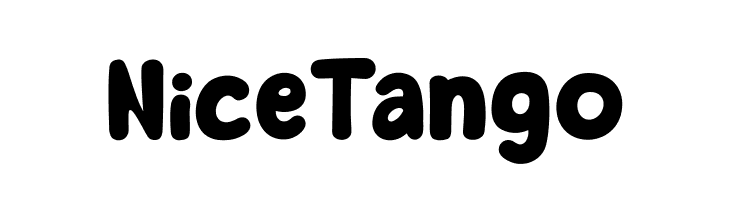
( Fonts by Bjokey )
A playful, casual handwritten font with smooth, rounded edges.
( Font by Pedro Munoz Pastor - fodkito.deviantart.com )
A bold, geometric font with a strong, block-like design.
A bold, italicized font with a dynamic and heroic style.
( Fonts by Pi Luo Chiu - thisisallenchiu.tumblr.com )
A decorative and distressed font with intricate swirls and a grunge aesthetic.
( Fonts by Des Gomez )
A playful, hand-drawn font with quirky, artistic characters.
A playful, cursive font with elegant connections and a whimsical style.
A classic serif font with elegant, sharp lines and traditional details.
A bold, serif font with high contrast and a classic, robust style.
A flowing and elegant script font with dynamic curves and moderate contrast.
( Fonts by Manfred Klein - manfred-klein.ina-mar.com )
A decorative font with intricate floral designs on each letter.
An elegant, flowing script font with graceful loops and swashes.
( Fonts by Manfred Klein - manfred-klein.ina-mar.com )
A bold, three-dimensional font with a rounded, block-like structure.
( Fonts by Nick Curtis - www.nicksfonts.com )
A bold, geometric font with angular elements and strong presence.
( Fonts by Have Fun with Fonts )
A bold, playful font with a slight slant and moderate contrast.
( John Gauthier - John Gauthier )
A bold, angular font with a dynamic and modern style.
( Fonts by or from www.graffitifonts.net )
A playful, casual handwritten font with dynamic, irregular strokes.
( Fonts by Manfred Klein - manfred-klein.ina-mar.com )
A classic serif font with an elegant outline effect, offering a refined and sophisticated look.
A sleek, modern font with geometric lines and a minimalist aesthetic.
( Fonts by Flava Fonts - Leigh Taylor )
A geometric, abstract font with bold, rectangular outlines and a modern aesthetic.
A bold, distressed font with a textured, vintage appearance.
A futuristic, geometric font with sharp angles and a tech-inspired aesthetic.